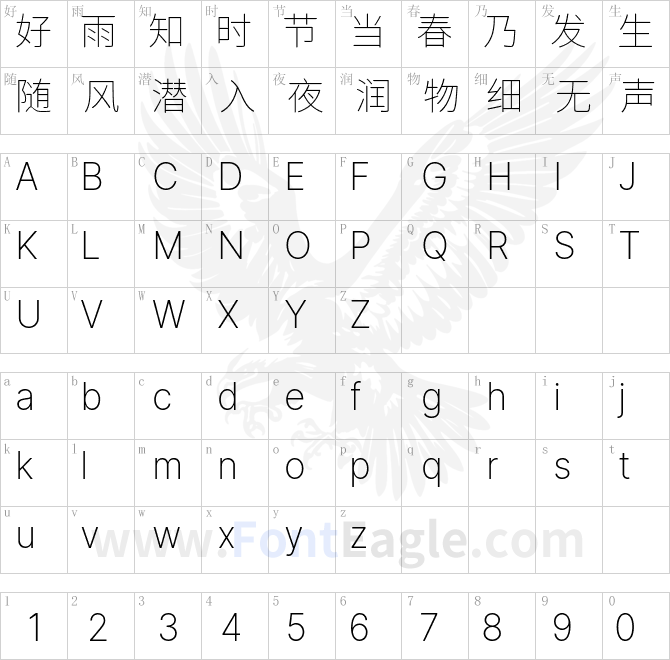
更纱黑体 SC Xlight Regular.ttf Font Image
更纱黑体 SC Xlight Regular.ttf Base Font Information
- Font name:更纱黑体 SC Xlight
- Font Subfamily ID:Sarasa Gothic SC Extralight
- Font Full Name:更纱黑体 SC Xlight
- Postscript:Sarasa-Gothic-SC-Extralight